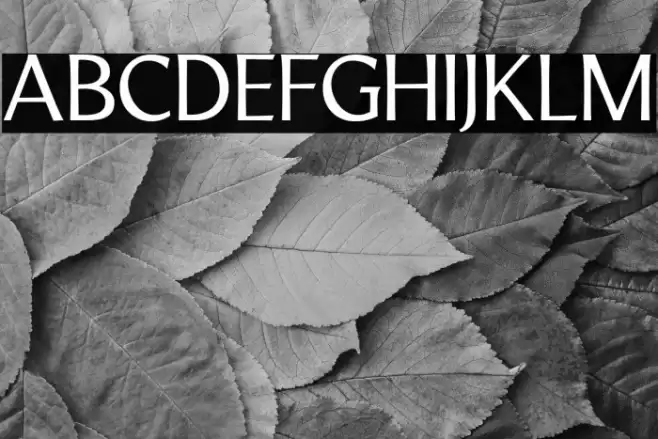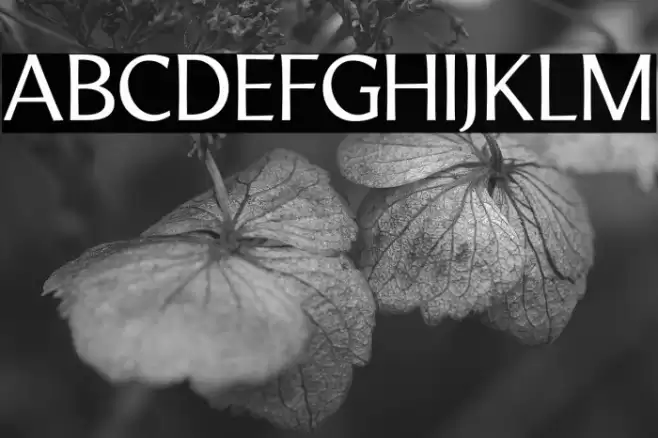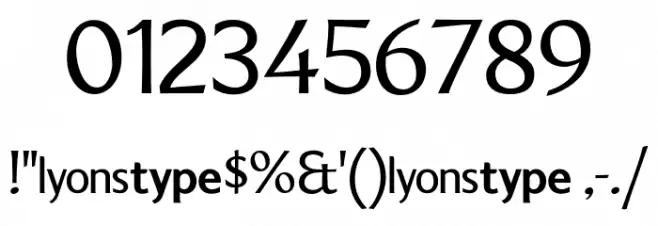
LTMarathon-Regular Font
LTMarathon-Regular Description
This font features a clean and modern design with a slight touch of elegance. The uppercase letters are bold and well-defined, offering a strong presence, while the lowercase letters maintain a consistent flow with a slightly softer appearance. The numerals are clear and easy to read, making them suitable for various applications. The special characters are distinct and integrate seamlessly with the overall style. The font's design is versatile, making it suitable for both digital and print media.
A modern and elegant font with bold uppercase and smooth lowercase letters from Uncategorized fonts.
- Proposed Projects: Ideal for branding, editorial design, advertising, and web design projects.